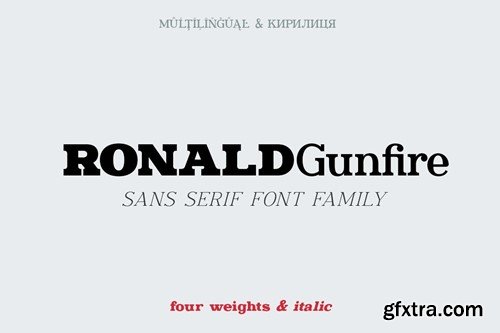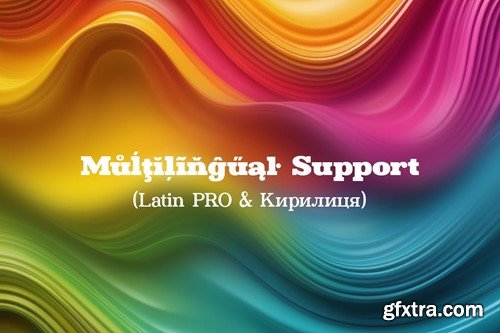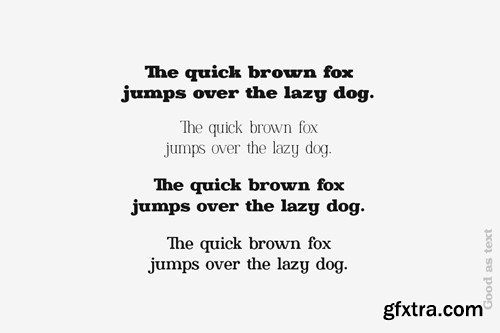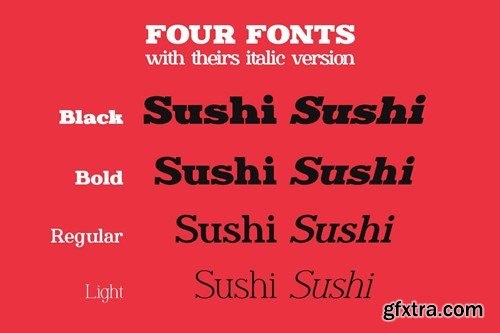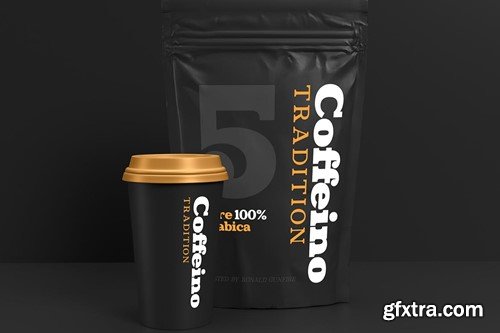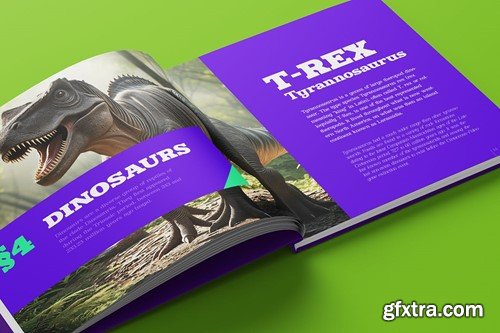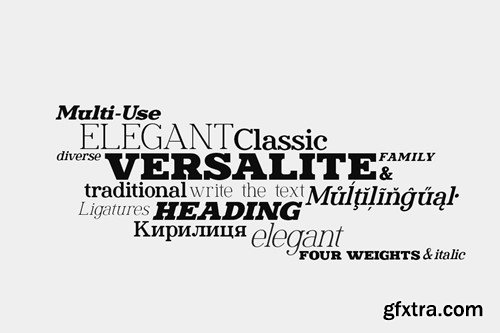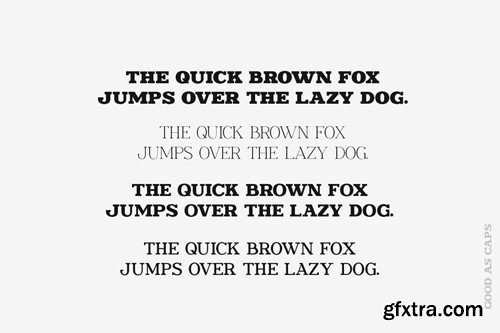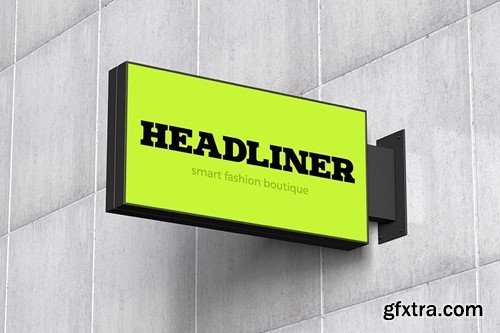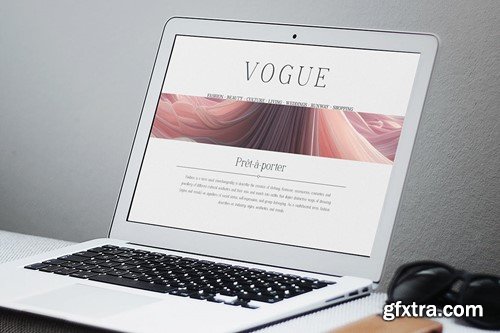
Ronald Fire Serif 字体家族 UQMZEGL
Ronald Gunfire is classic and modern serif Font Family carefully designed and well looking in lowercase and uppercase letters both. It has Four Weights with theirs Italic Versions. Please see the large preview images to see how it works! --------------------------------- Multilingual support (LatinPro & Slavian Cyrillic). Supported Languages: Bosnian, Catalan, Czech, Danish, German, English, Spanish, Estonian, Finnish, French, Irish, Croatian, Hungarian, Icelandic, Italian, Lithuanian, Latvian, Maltese, Norwegian, Polish, Portuguese, Romanian, Slovak, Slovenian, Albanian, Swedish, Turkish, Ukrainian, Belarusian, Bulgarian, Macedonian, Russian, Rusyn, Russian, Serbo-Croatian. --------------------------------- File includes: